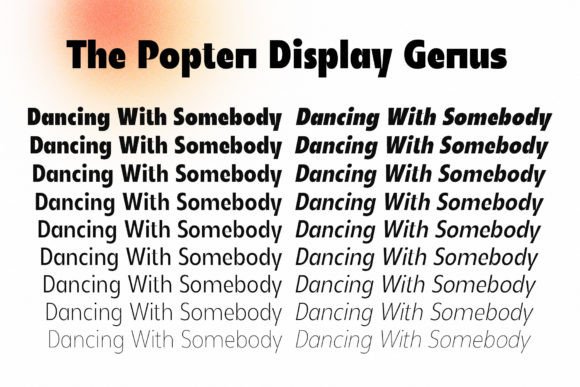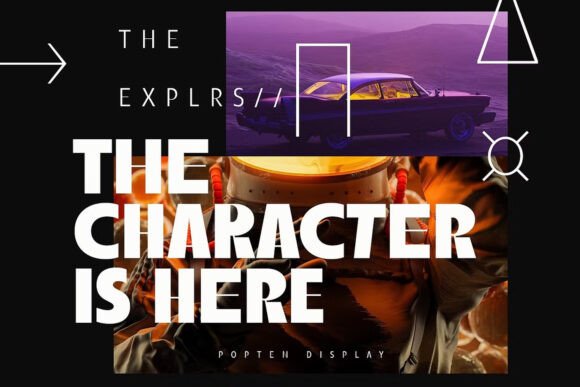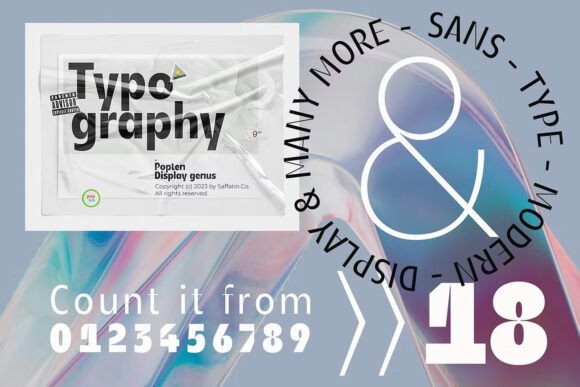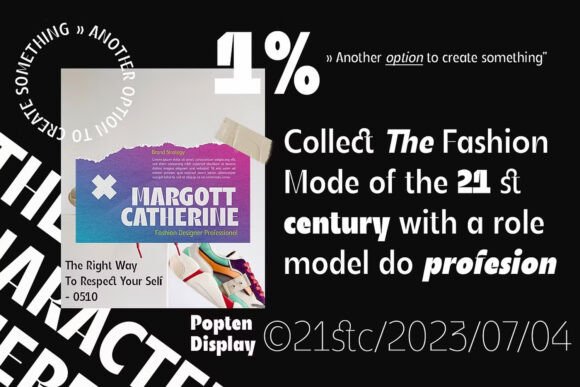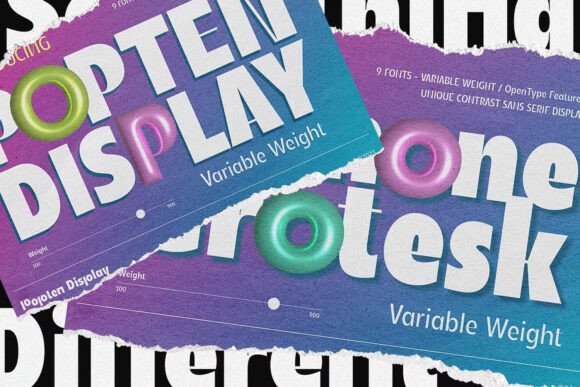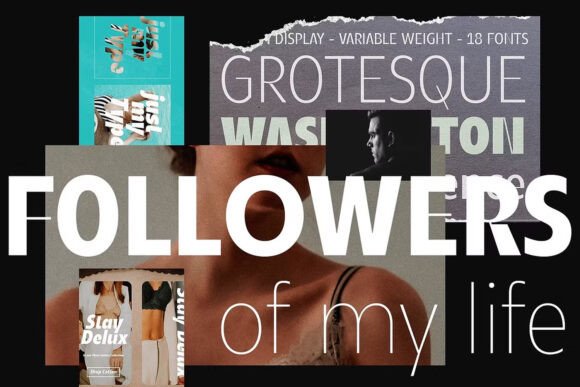
Introduction to Popten Display Font
Popten is a contemporary and minimalist sans display font that brings a fresh and dynamic vibe to any design.
Its sleek lines and geometric shapes create a sense of modernity and sophistication With a versatile character set, Popten Display is perfect for eye-catching headlines, logos, and branding projects.
Key Features of Popten Display Font
Why Choose Popten Display Font?